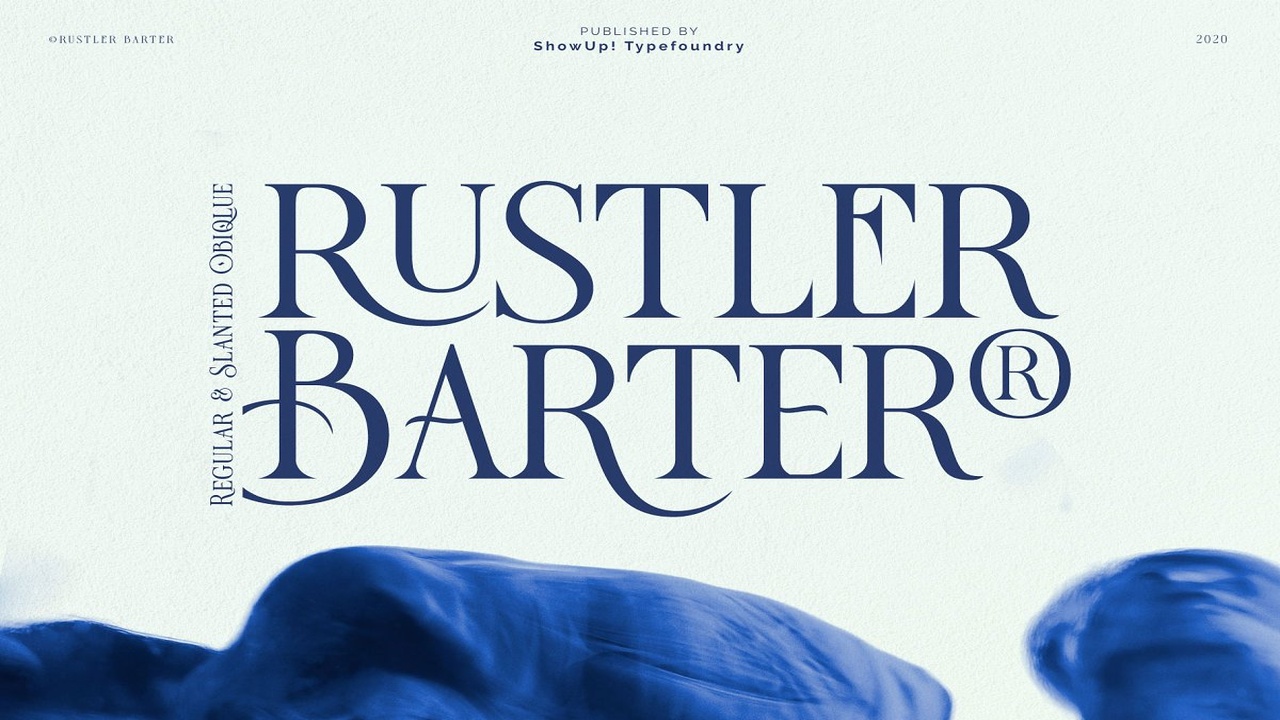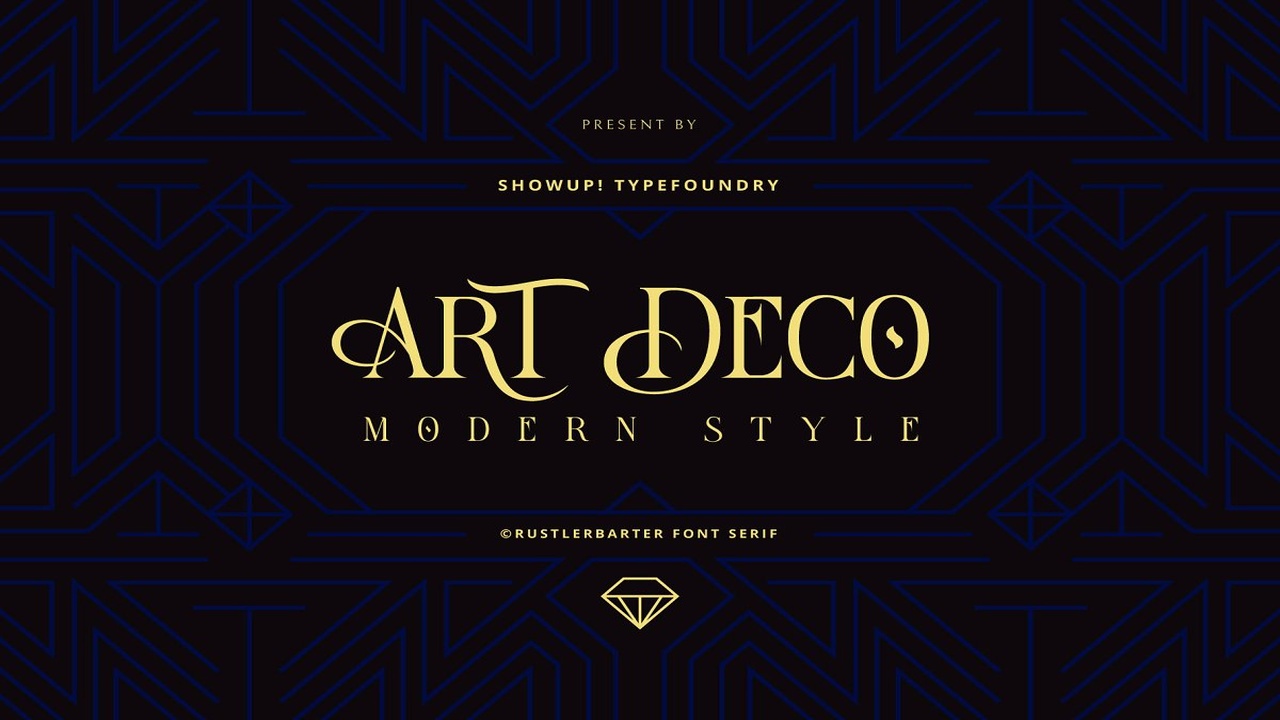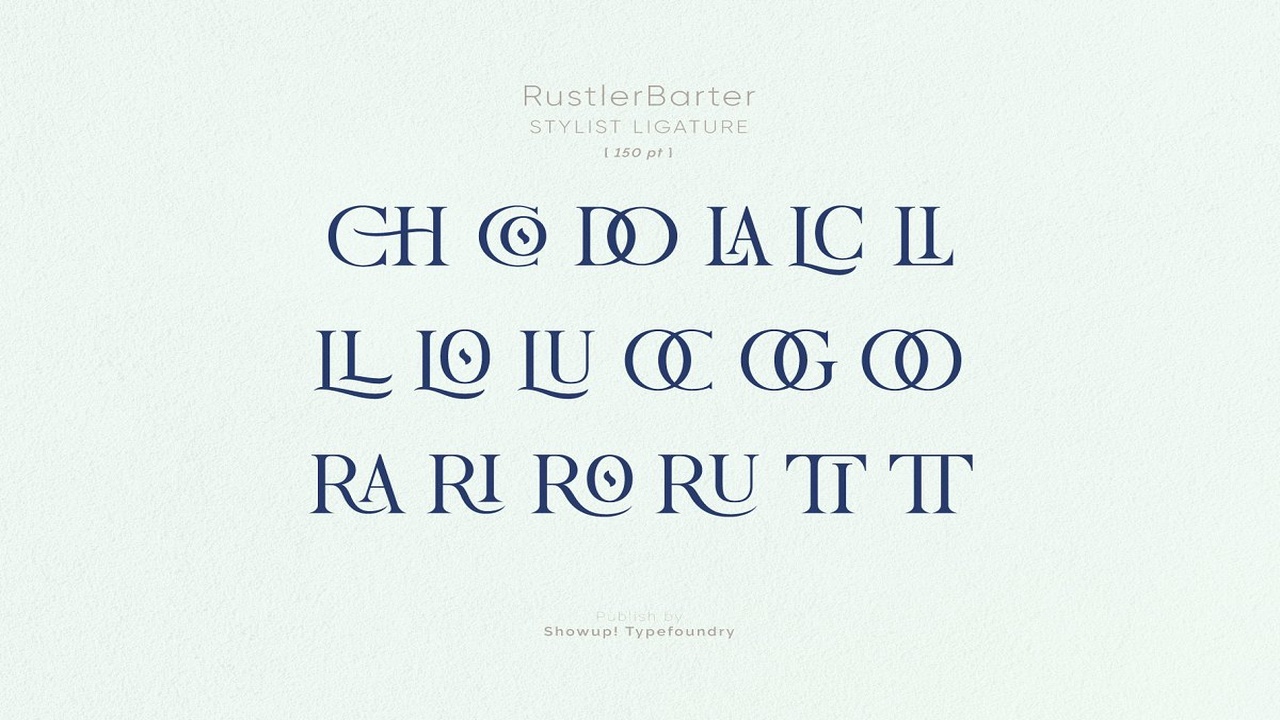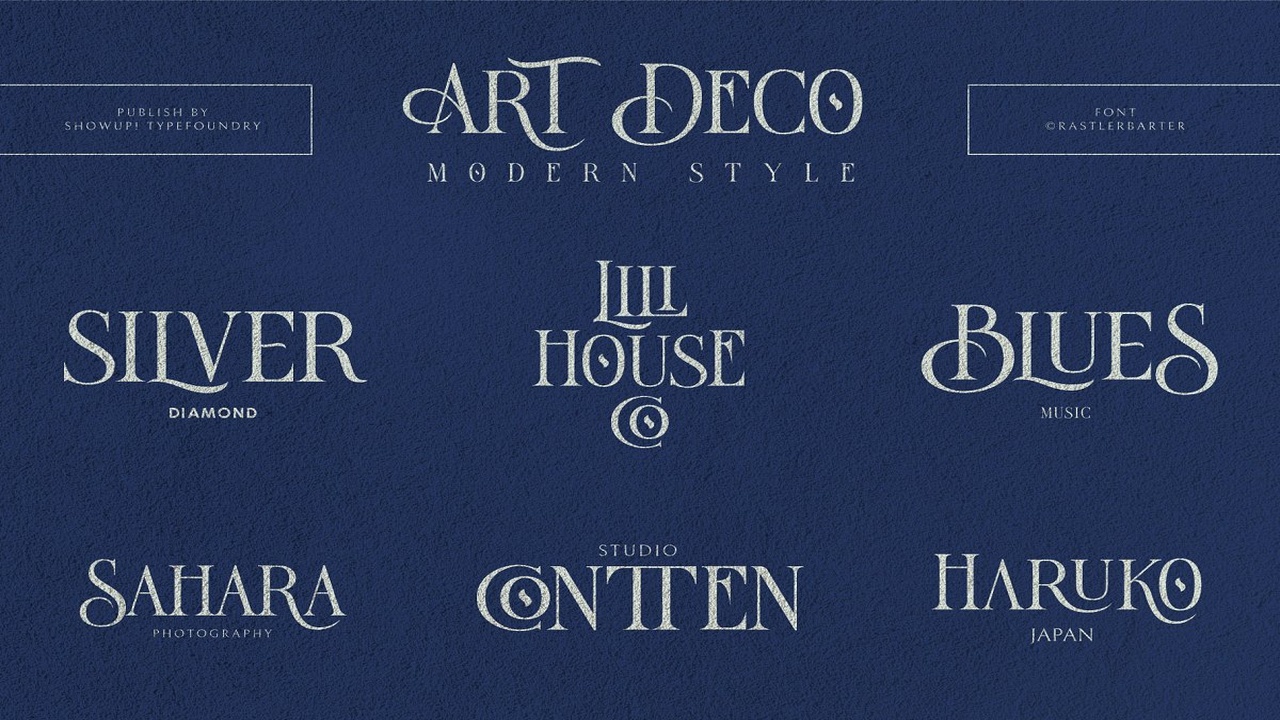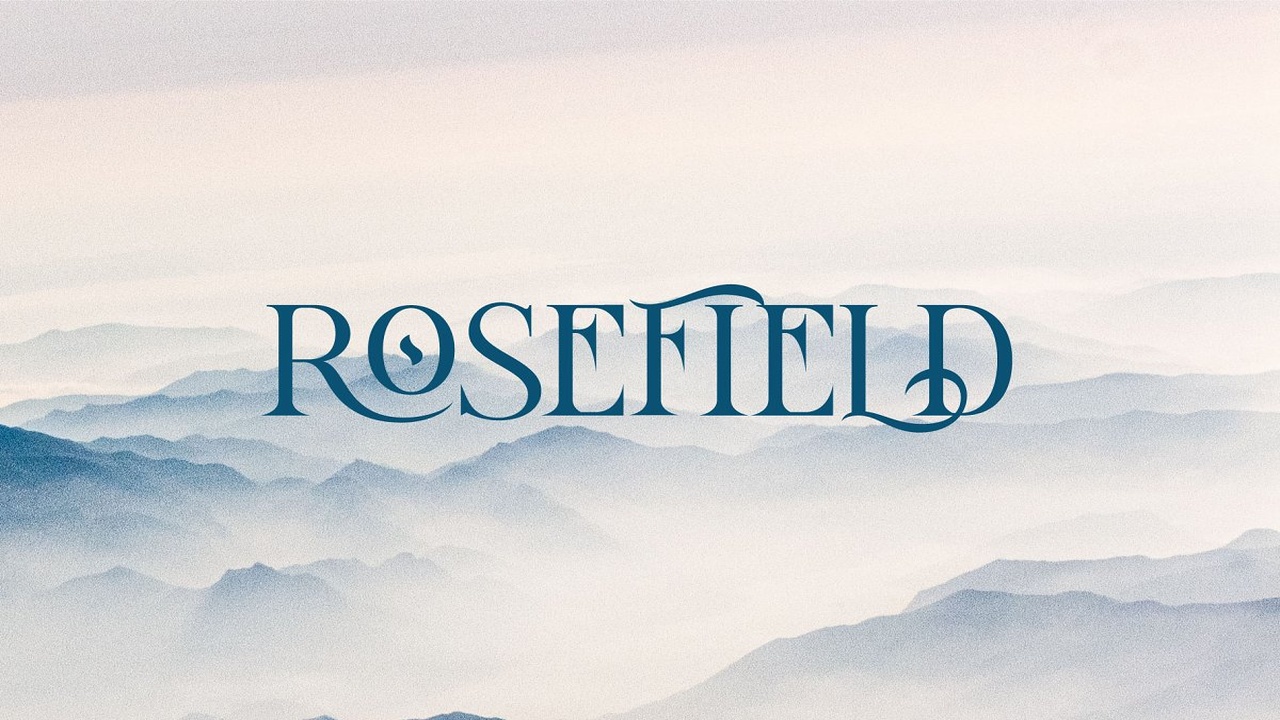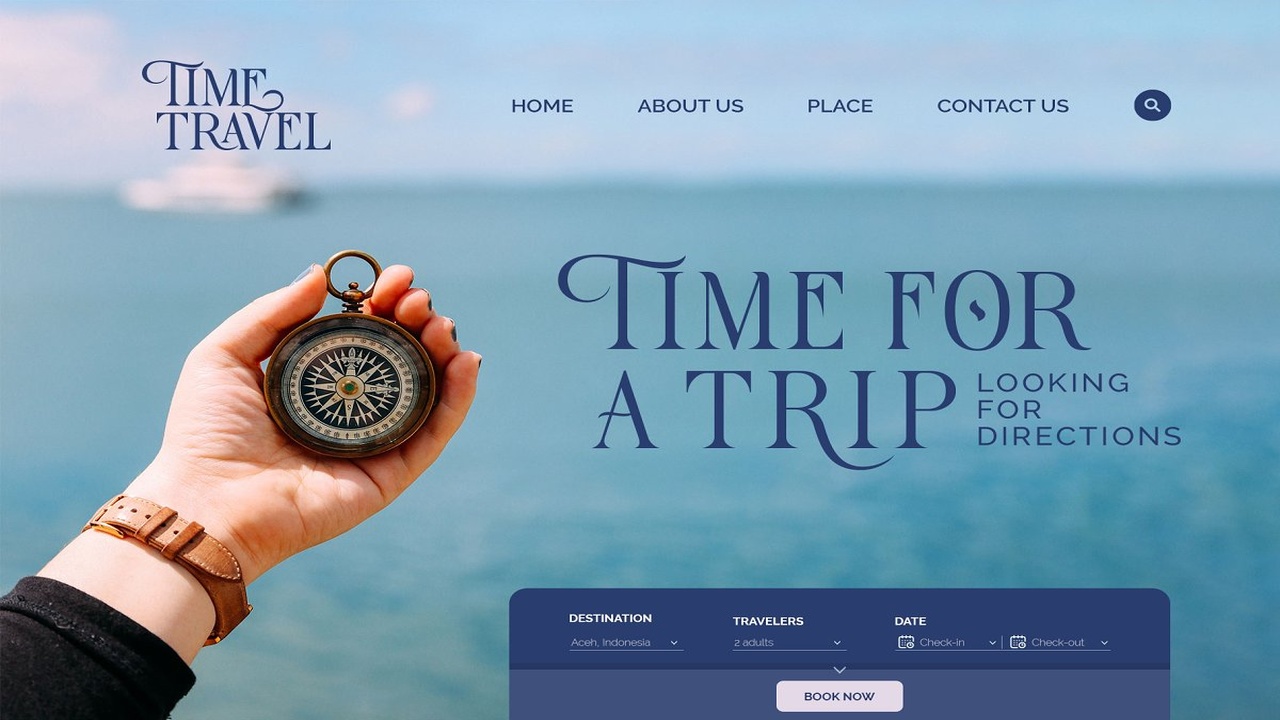
About the Rustler Barter Font
New Font: https://crmrkt, com/xa9jw9?u=ARNOptions buy available at https://showupstd, com/rustler-barter/Rustler Barter® is an elegant display font inspired by the Art Deco era, It perfectly represents vintage aesthetics in a modern and minimalist way, The font includes special uppercase letters, alternate characters, and beautiful ligatures, Furthermore, the font is perfect for elegant logo design, packaging, or invitation cards
It was designed to be versatile, to blend in your design Display style to touch a lot of personalities, the font was created in collaboration with Hendra Maulia from Dirtyline® Studio, There Include:2 Fonts otf & ttfOpentype FeatureAlternate CharacterMultilanguageIf you have any question, don’t hesitate to contact me by email at info